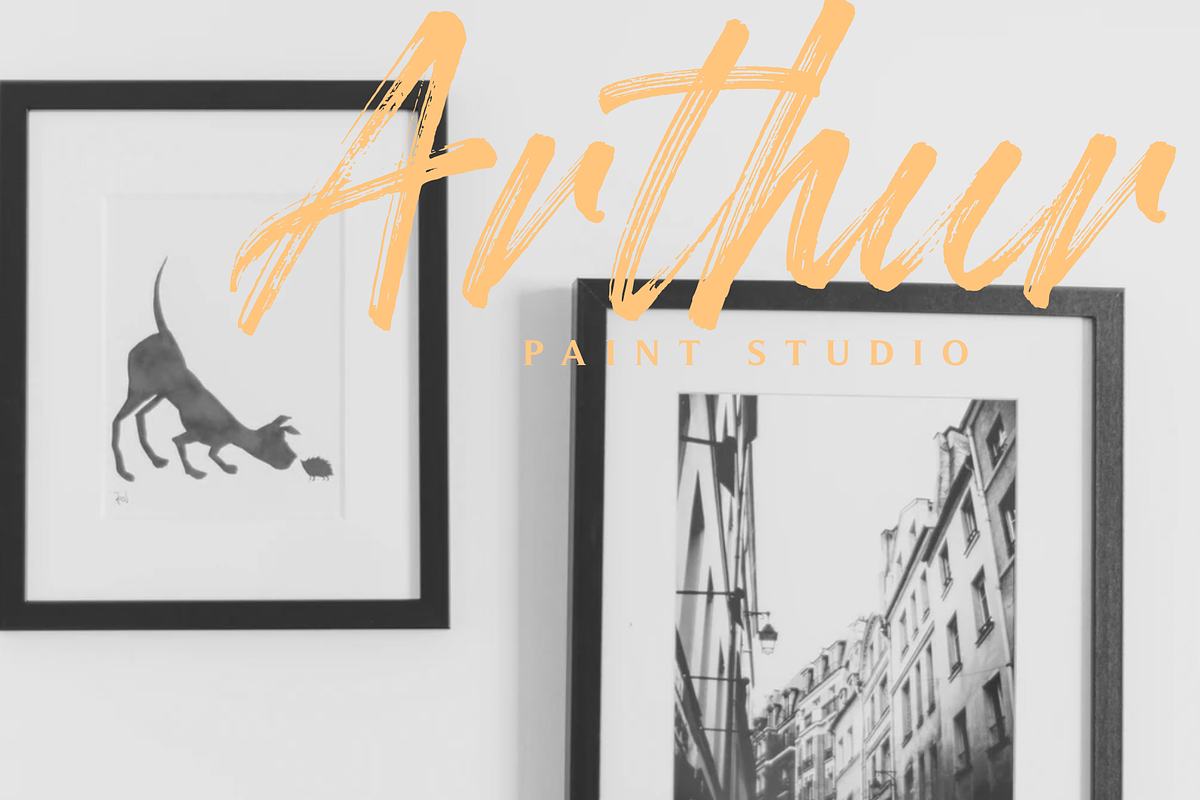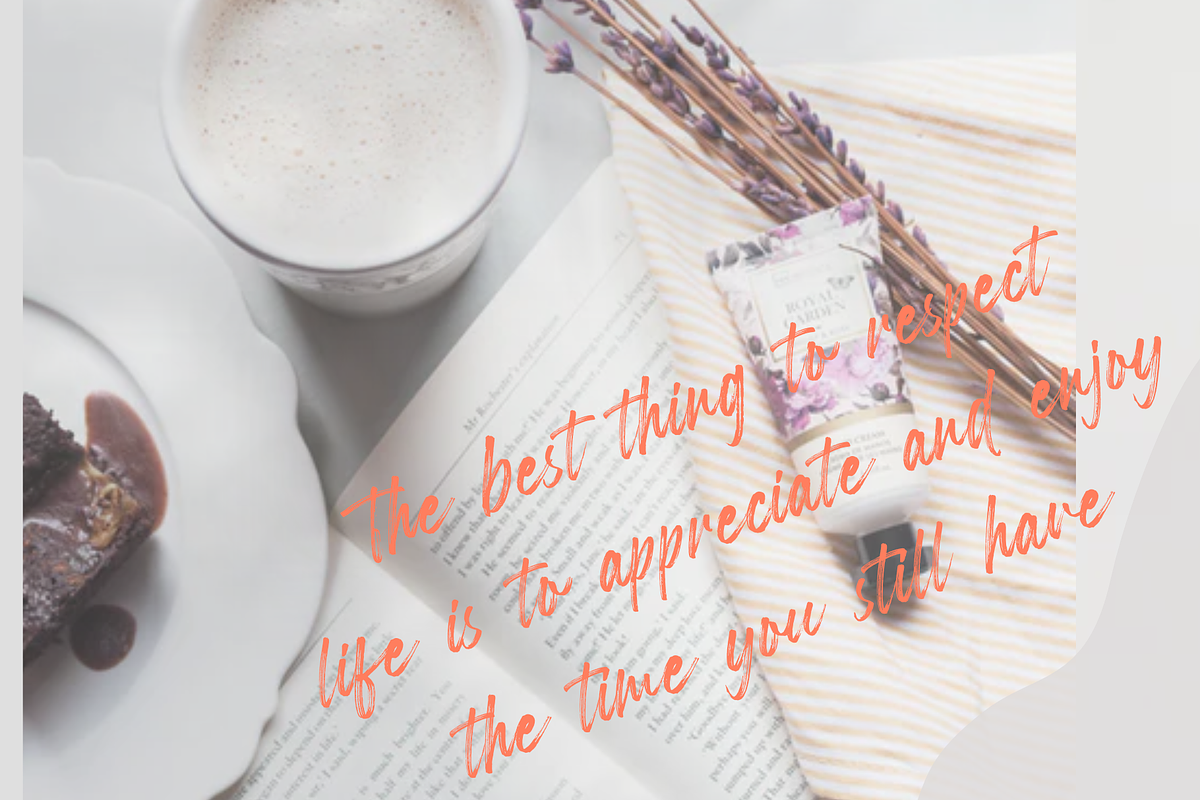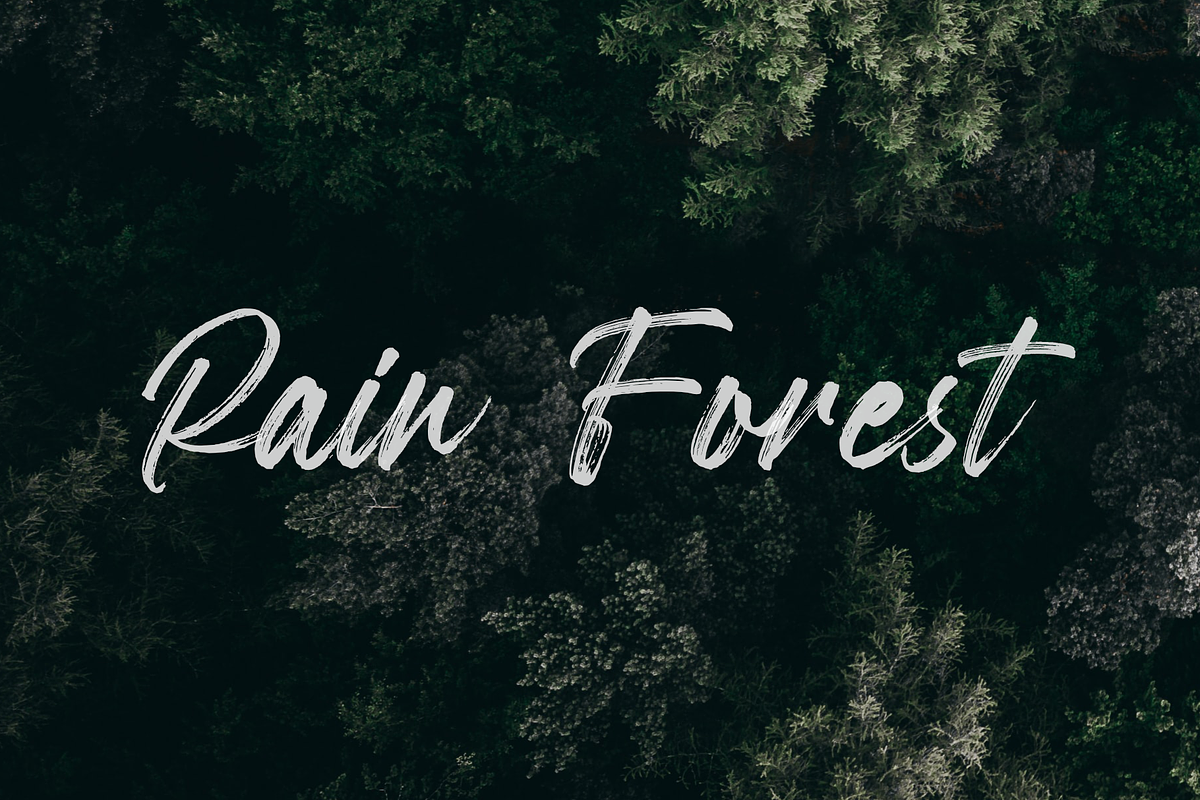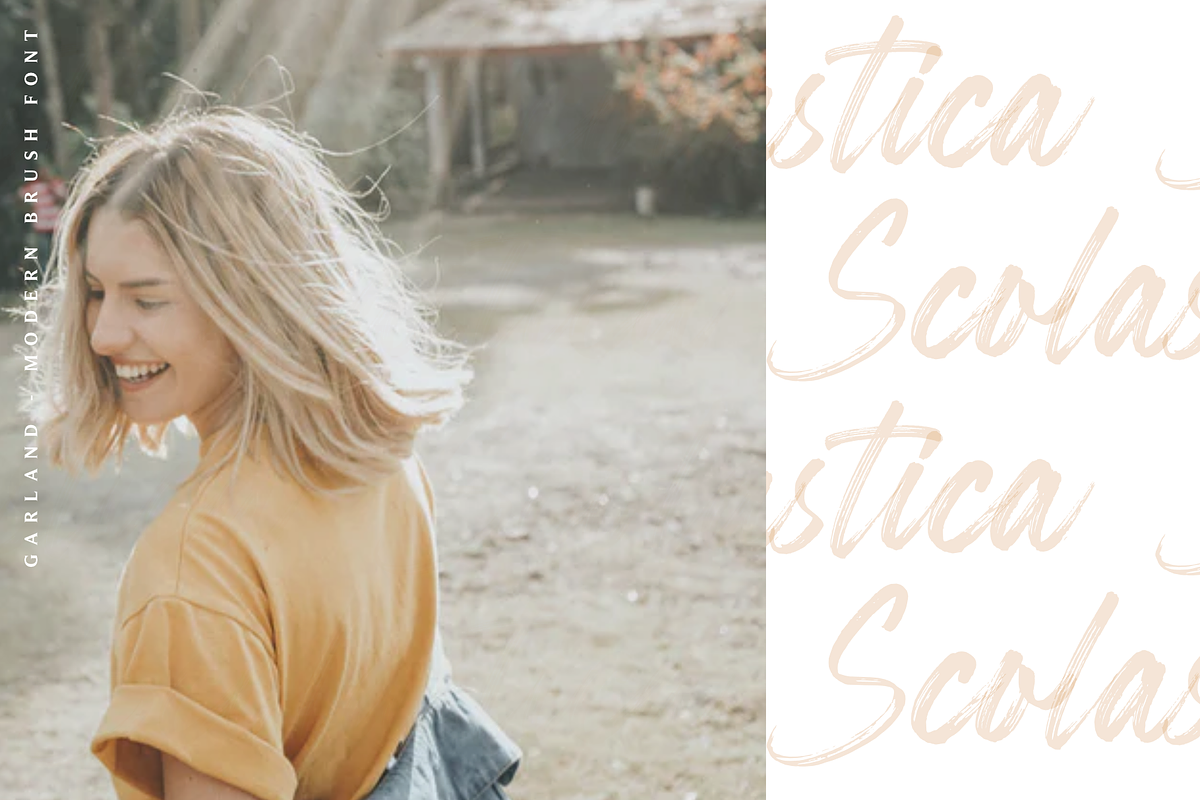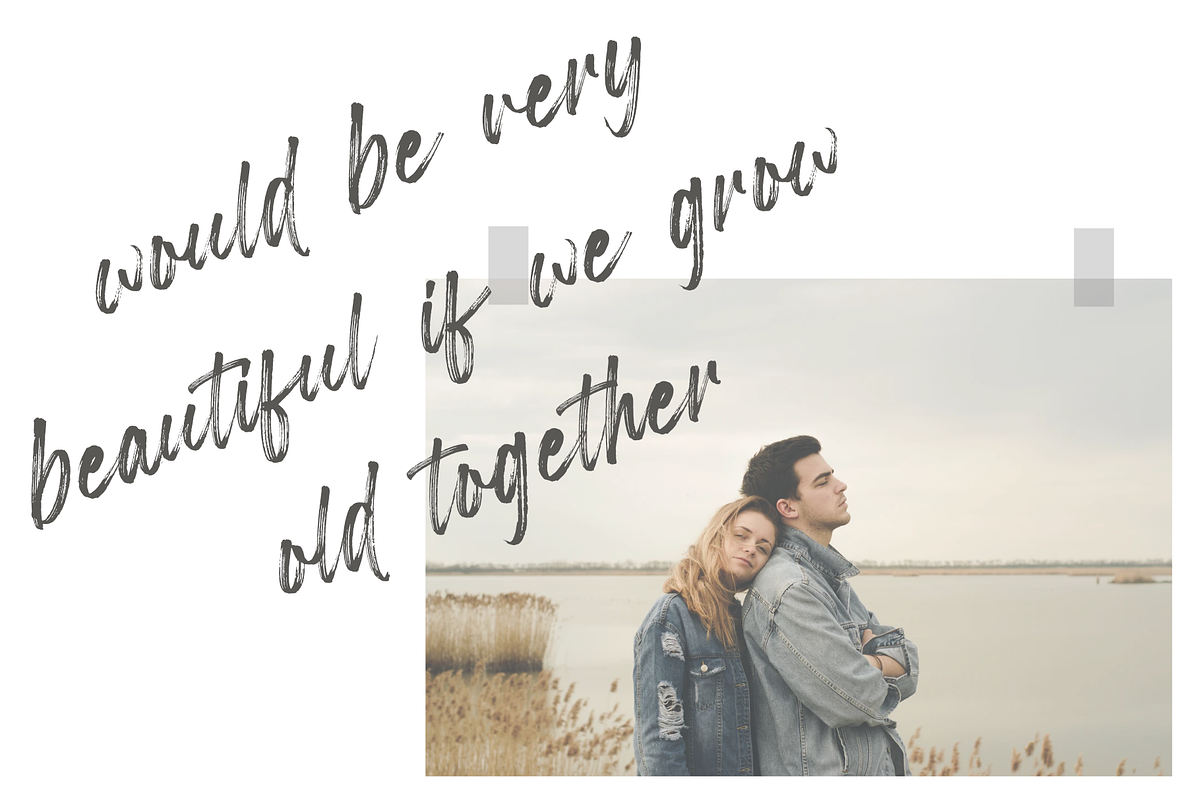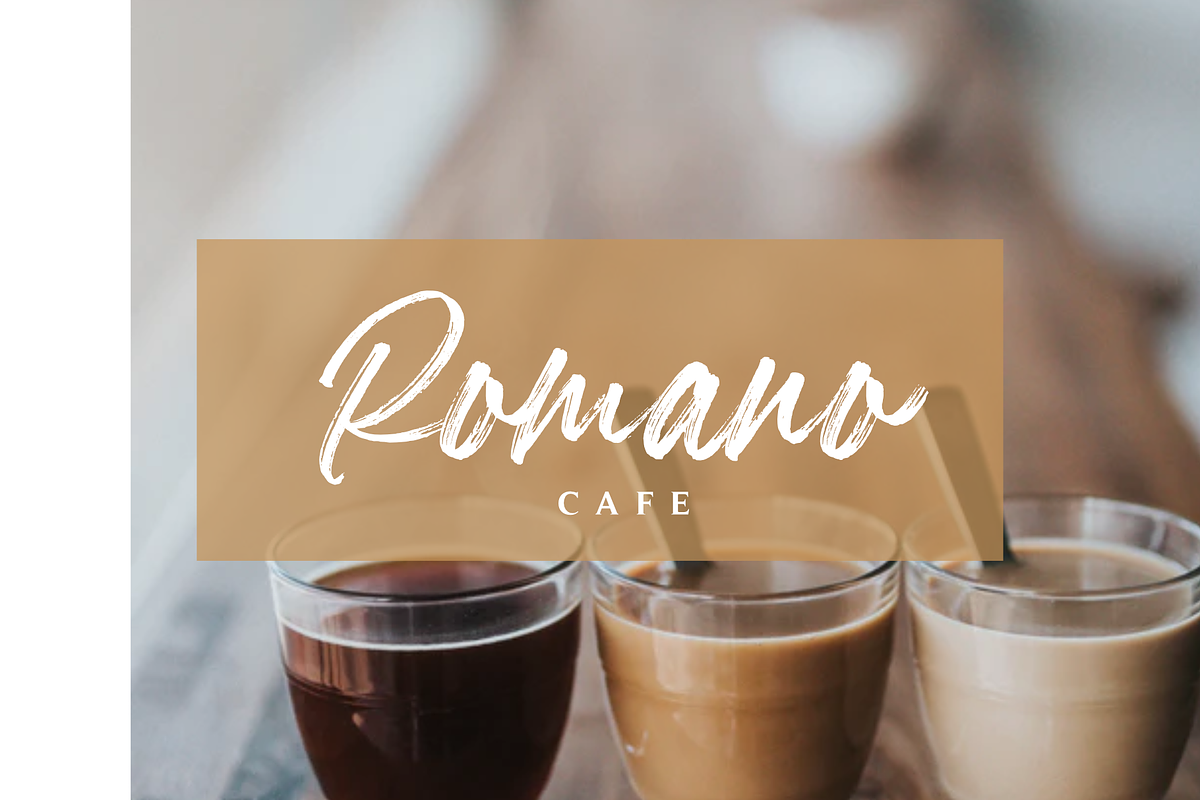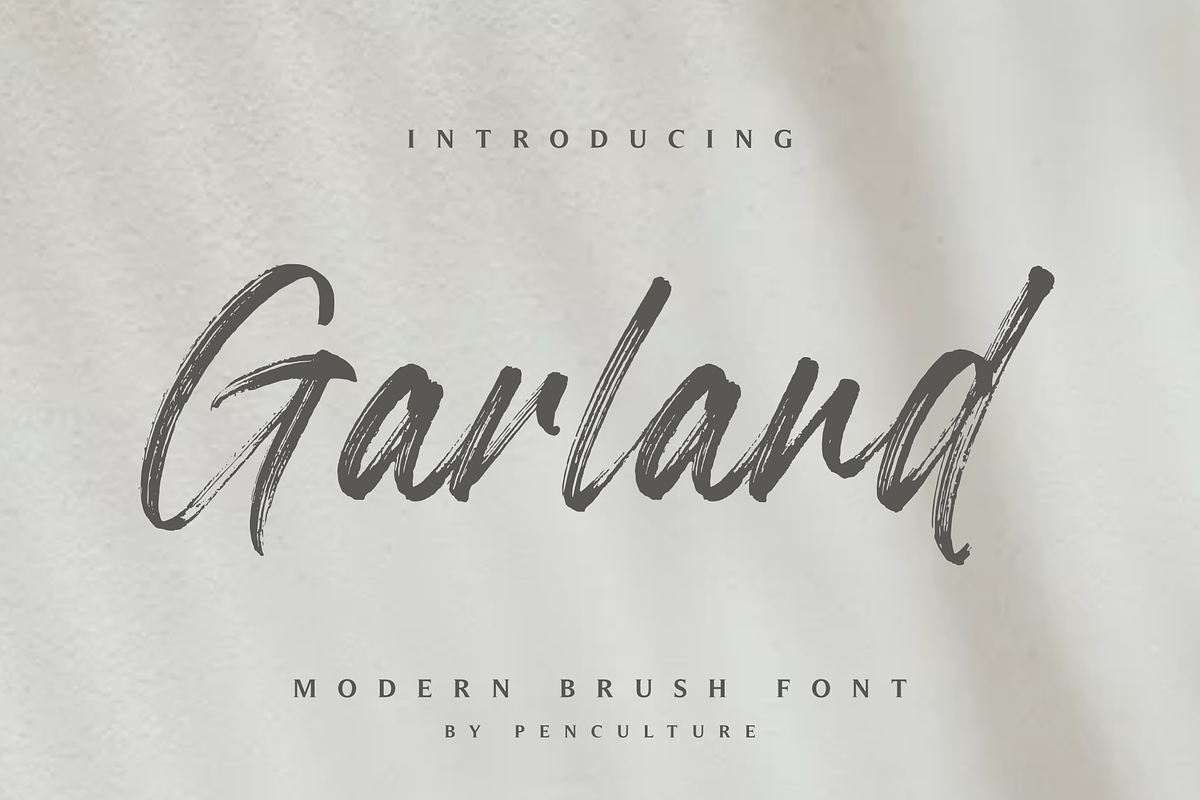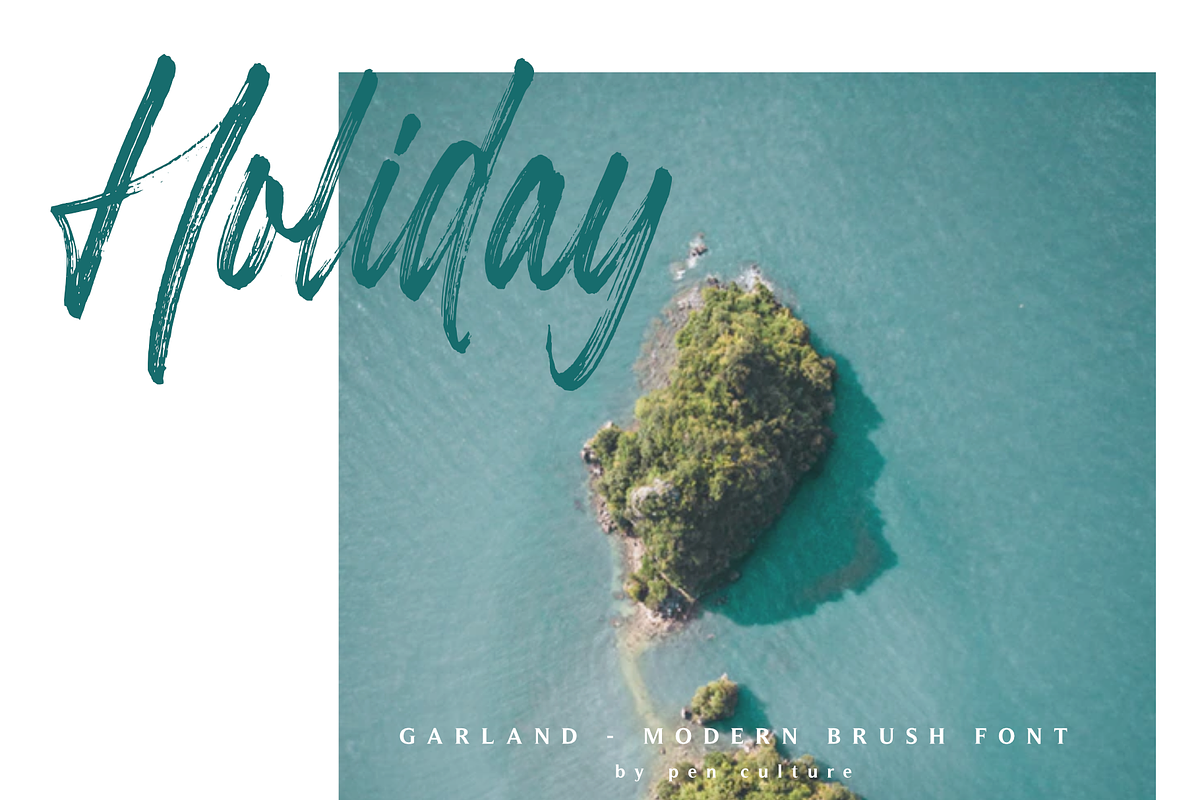
Garland - Modern Brush Font
Introducing the new Garland. It's modern brush font with beautiful and natural brush stroke that perfect for logo, poster, product, apparel, packaging and many more.
Garland come with full all caps, number, punctuation. this font very easy to use, so what you waiting for.
- Garland come with full all caps, number, punctuation.
Garland - Modern Brush Font by Pen Culture fits naturally into Branding, posters, packaging, typography.